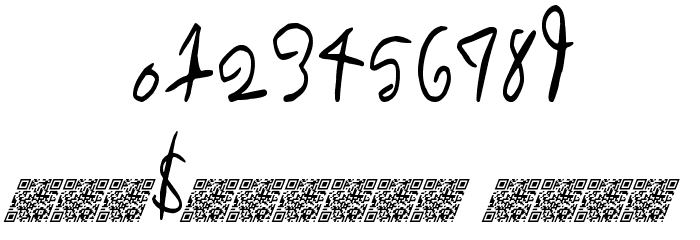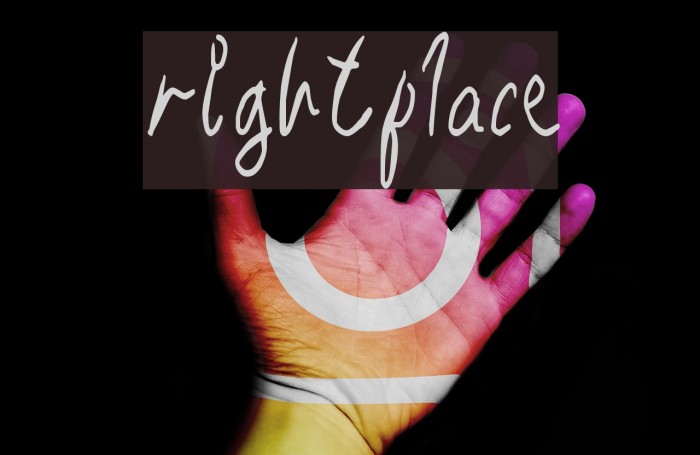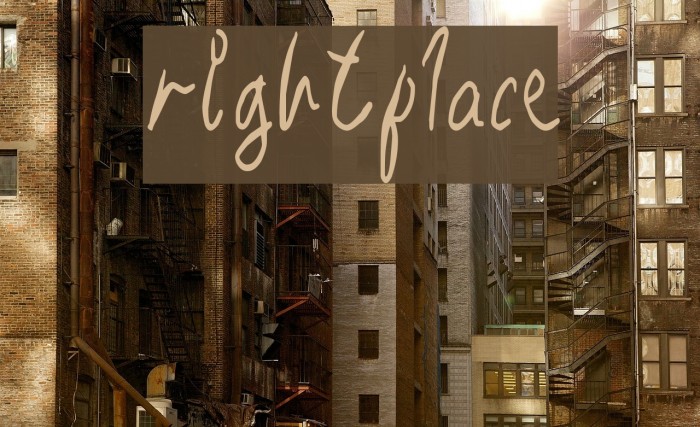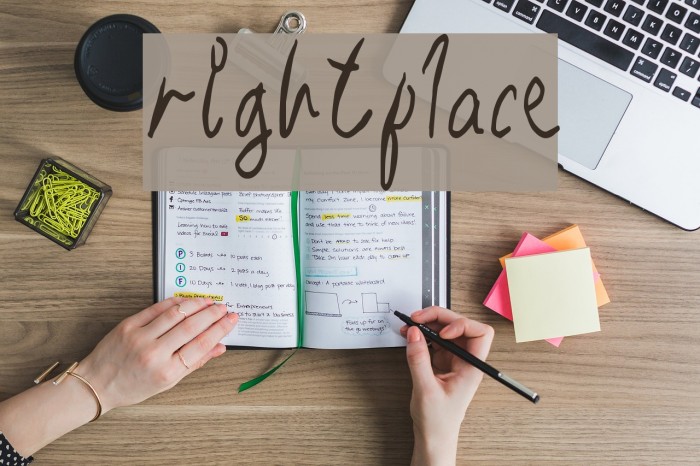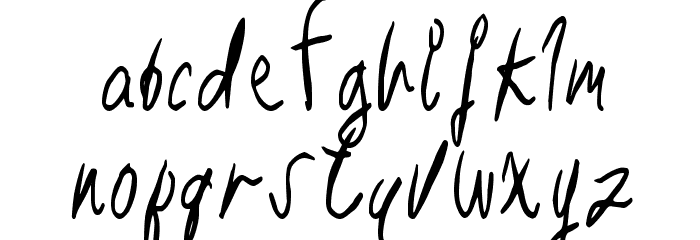
RightPlace Font
RightPlace Description
This font features a dynamic and expressive handwritten style, characterized by its fluid and organic strokes. The letters are slightly slanted, giving a sense of movement and energy. The uppercase and lowercase letters maintain a consistent flow, with some letters featuring unique loops and curves that add personality. The numbers are equally expressive, with varying stroke widths that enhance the handwritten feel. Special characters are integrated seamlessly, maintaining the overall aesthetic. This font is ideal for projects that require a personal touch, such as invitations, greeting cards, or branding materials that aim to convey warmth and authenticity.
A dynamic and expressive handwritten font with fluid strokes from Uncategorized fonts.
- Proposed Projects: Ideal for invitations, greeting cards, personal branding, and creative projects needing a personal touch.
- Use Case: Logos, Headlines, Invitations